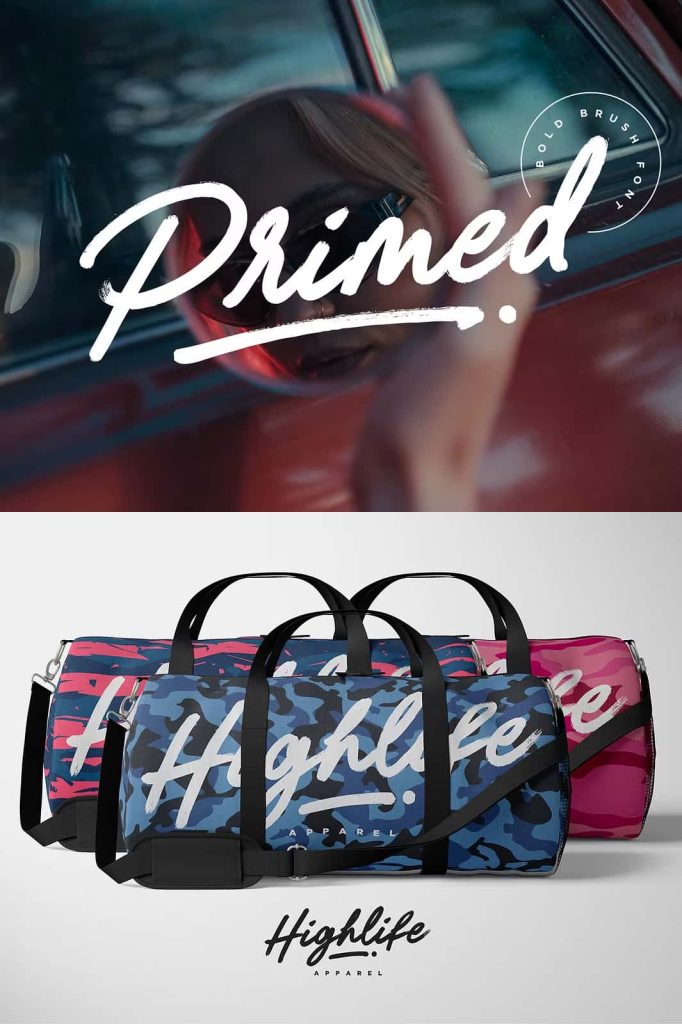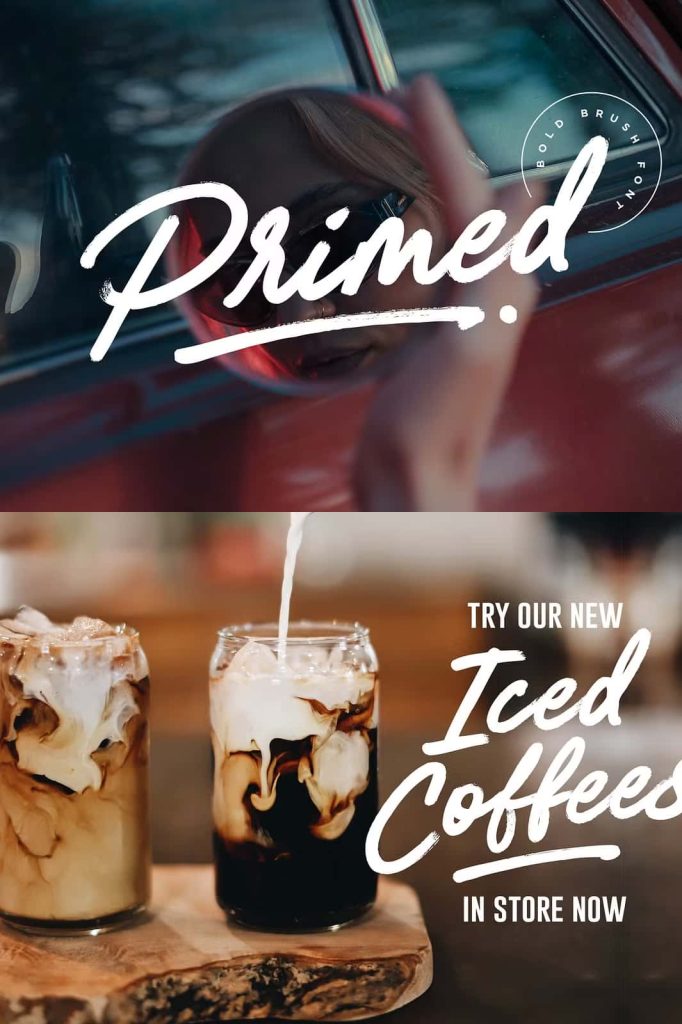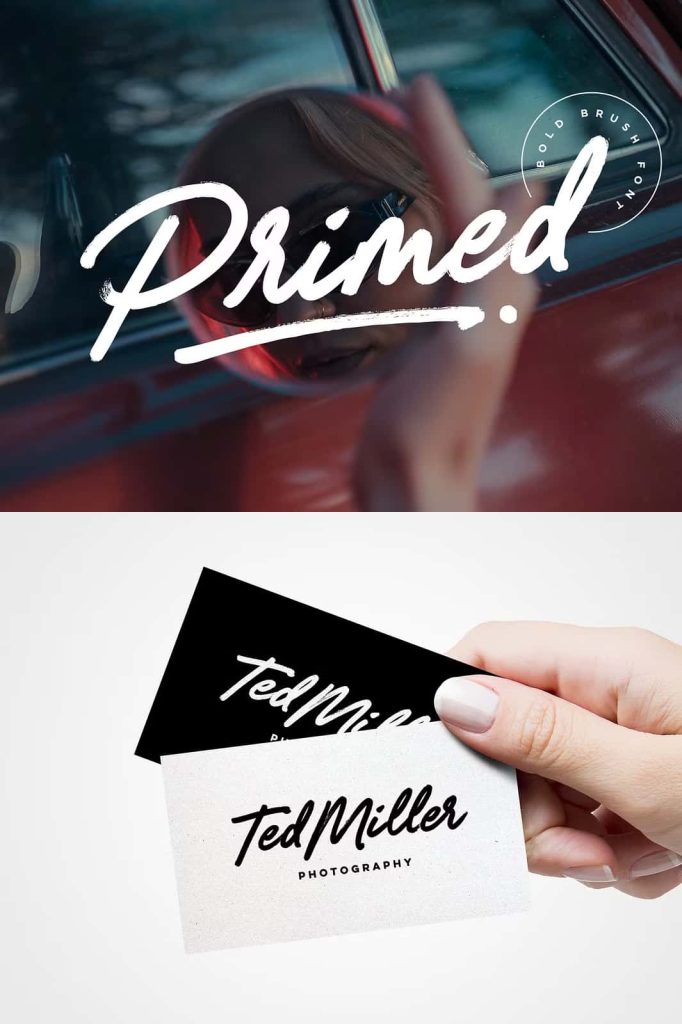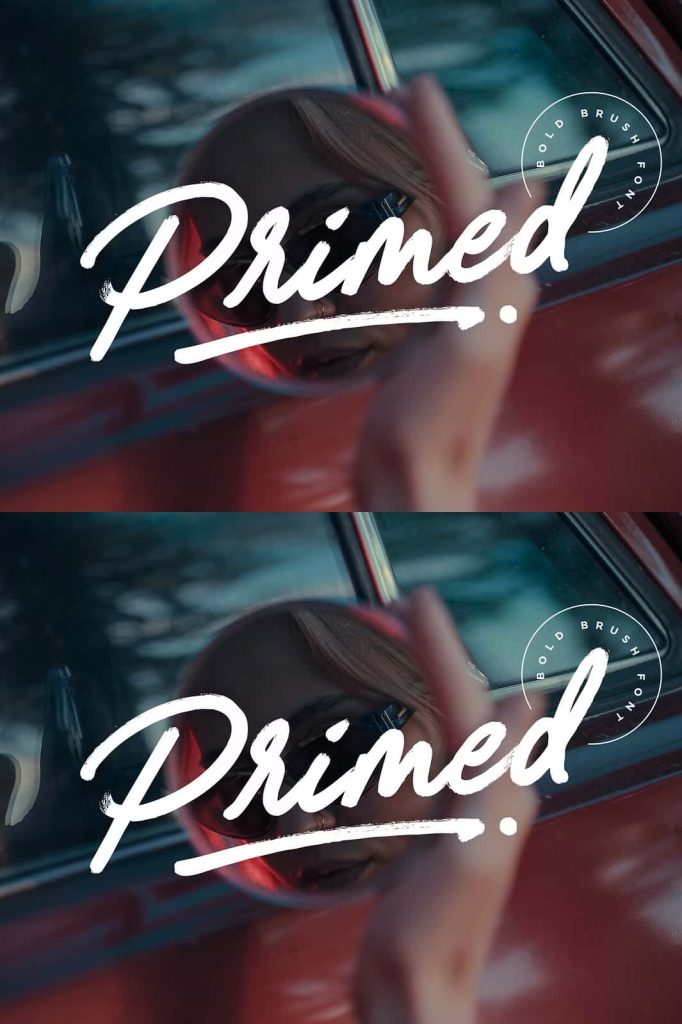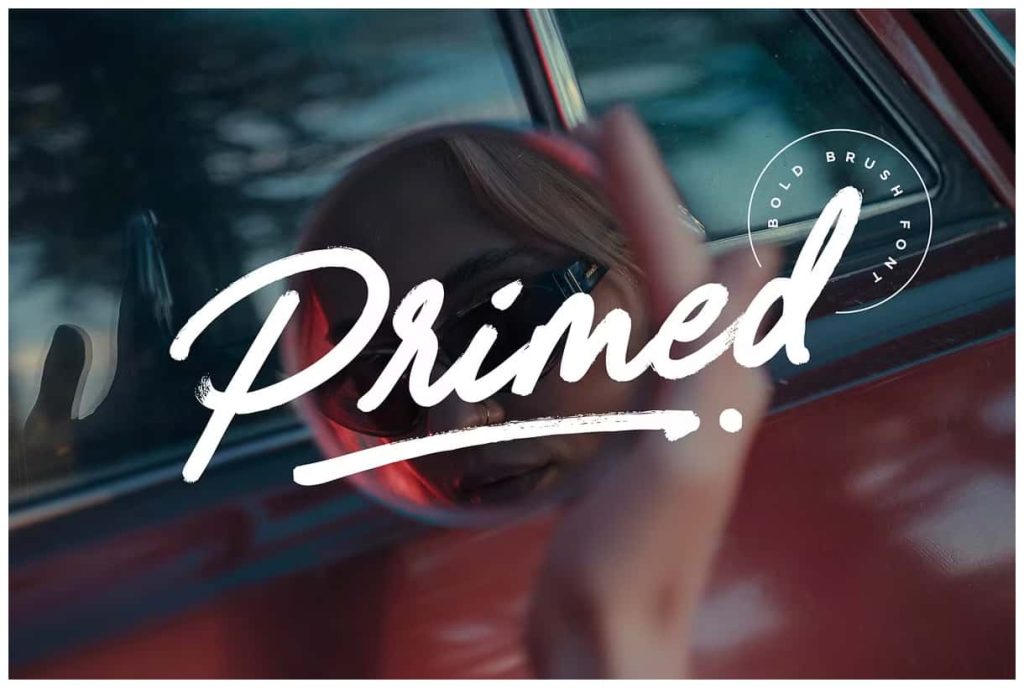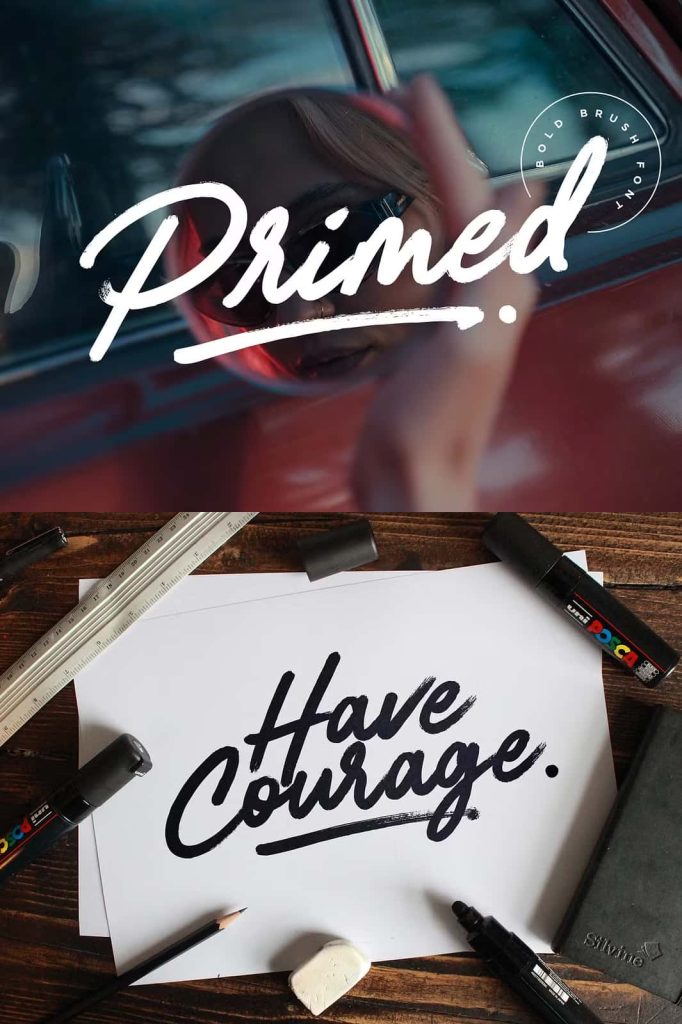
Primed: An Authentic Hand-Drawn Brush Font Made with Real Marker Pens
Primed is an expressive hand-drawn brush font created using real marker pens to capture the raw energy and texture of genuine hand lettering. Every stroke reflects the pressure, movement, and imperfection of writing by hand, giving the font a bold and unmistakably authentic character. This typeface is designed to stand out, making it an excellent choice for designers who want typography that feels alive and unfiltered.
Rather than relying on artificial brush effects, Primed draws directly from real marker pen strokes. This approach delivers a natural texture and organic rhythm that cannot be replicated digitally. The result is a brush font that feels confident, expressive, and highly engaging.
Authentic Hand-Drawn Style with Real Texture
Primed embraces the honesty of hand-drawn lettering. Each letter showcases natural variations in width, edge, and stroke direction, just as you would expect from real marker pens. These variations give the font depth and personality while preventing it from feeling repetitive or mechanical.
The texture of the strokes adds visual interest and reinforces the handmade quality of the font. This authenticity helps designs feel personal and dynamic, connecting more directly with viewers.
Marker Pen Strokes That Feel Natural
The marker pen origin of Primed is evident in every character. The strokes feel smooth yet bold, with subtle roughness that enhances realism. Letters lean and flow in a way that mirrors natural handwriting, creating text that feels spontaneous and energetic.
This quality makes Primed especially effective for expressive messaging and creative storytelling.
Designed for Unmissable Display Typography
Primed is built for impact. Its bold brush strokes and confident shapes ensure that text commands attention immediately. This makes the font ideal for display use where visibility and personality matter most.
Headlines, titles, and promotional messages benefit from the strong presence of Primed. The font transforms simple words into visual statements that cannot be ignored.
Strong Letterforms with Clear Readability
Despite its expressive style, Primed maintains clear letterforms that support readability. The balance between bold strokes and open shapes allows text to remain legible even at larger sizes and from a distance.
This clarity makes the font practical for real-world applications where communication needs to be both expressive and effective.
Perfect for Logos and Brand Identity
Primed works exceptionally well in logo design and branding projects. Its hand-drawn nature adds personality and authenticity, helping brands feel approachable and distinctive. The brush style communicates confidence and creativity, making logos feel bold and memorable.
Brands that value individuality and expression can use Primed to establish a strong visual identity that stands apart from generic typography.
Handwritten Quotes with Character
Primed shines in handwritten quotes and inspirational messages. The natural flow and textured strokes give words emotional weight, making quotes feel sincere and impactful.
This makes the font ideal for posters, social media graphics, prints, and creative merchandise.
Ideal for Product Packaging and Creative Design
In product packaging, Primed adds a handcrafted feel that draws attention on shelves and screens. The bold brush strokes create contrast against clean backgrounds, making product names and key messages stand out.
The font also performs beautifully across a wide range of creative design projects, including posters, advertisements, apparel, and digital graphics. Its expressive nature adapts easily to different styles and themes.
Versatile Across Print and Digital Media
Primed translates effectively across print and digital platforms. The hand-drawn texture remains clear and impactful whether printed large or displayed on screens. This versatility allows designers to maintain consistent visual identity across different mediums.
The font supports creative freedom while delivering reliable performance.
A Brush Font Built for Expression and Impact
Primed is more than a brush font. It is a tool for bold expression, authenticity, and visual storytelling. Its real marker pen origins, expressive strokes, and confident presence make it a powerful choice for designers who want typography to lead the message.
For projects that require unmissable display text, distinctive logos, expressive quotes, or eye-catching packaging, Primed offers an authentic hand-drawn brush font that delivers energy and personality in every word.